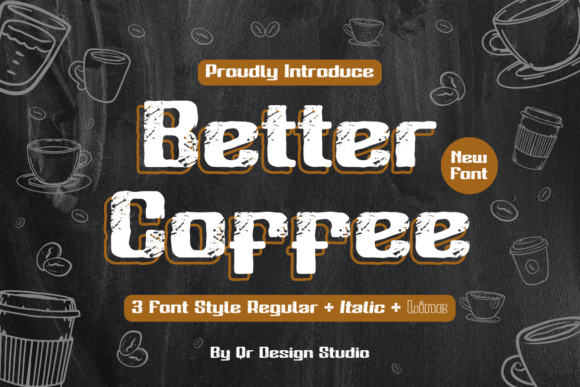
Introduce the Enchanting World of Better Coffee Font: Where Boldness and Assertiveness Unite
In the realm of typography, there exists a font that embodies the essence of confidence and audacity - Better Coffee Font. This sans serif masterpiece, crafted with meticulous precision by qrdesignstd, is an extraordinary addition to any designer's toolkit, possessing the power to transform words into visually striking statements.
Unleash Your Creativity with Better Coffee Font: The Ultimate Brand Logo Companion
As a designer, you understand the importance of creating brand logos that leave an indelible mark on your audience's minds. Your logos should embody the essence of your brand, conveying its values, personality, and unique identity. With Better Coffee Font as your trusted ally, you can effortlessly elevate your logo designs to new heights, ensuring they stand out from the crowd and resonate with your target audience.
Experience the Versatility of Better Coffee Font: A Font That Knows No Bounds
Whether you're designing logos, posters, brochures, or any other creative project, Better Coffee Font adapts seamlessly to your vision. Its bold and assertive nature commands attention, while its sans serif design ensures readability and clarity. With Better Coffee Font at your disposal, you can craft designs that exude professionalism, sophistication, and a touch of artistic flair.
Create Designs That Speak Louder Than Words: The Power of Better Coffee Font
In today's competitive market, your designs need to speak louder than words. They need to grab attention, convey messages effectively, and leave a lasting impression. Better Coffee Font empowers you to create designs that do just that. Its bold and assertive strokes demand attention, ensuring your messages are heard loud and clear. Whether you're designing for print or digital media, Better Coffee Font гарантирует, что ваши проекты будут выдел�ть��.
Embrace the Boldness of Better Coffee Font: A Symbol of Confidence and Distinction
In a world where mediocrity prevails, Better Coffee Font stands as a beacon of boldness and distinction. It's a font that reflects your confidence and willingness to make a statement. Whether you're a seasoned designer or just starting out, Better Coffee Font will inspire you to push the boundaries of creativity and create designs that leave a lasting impact.